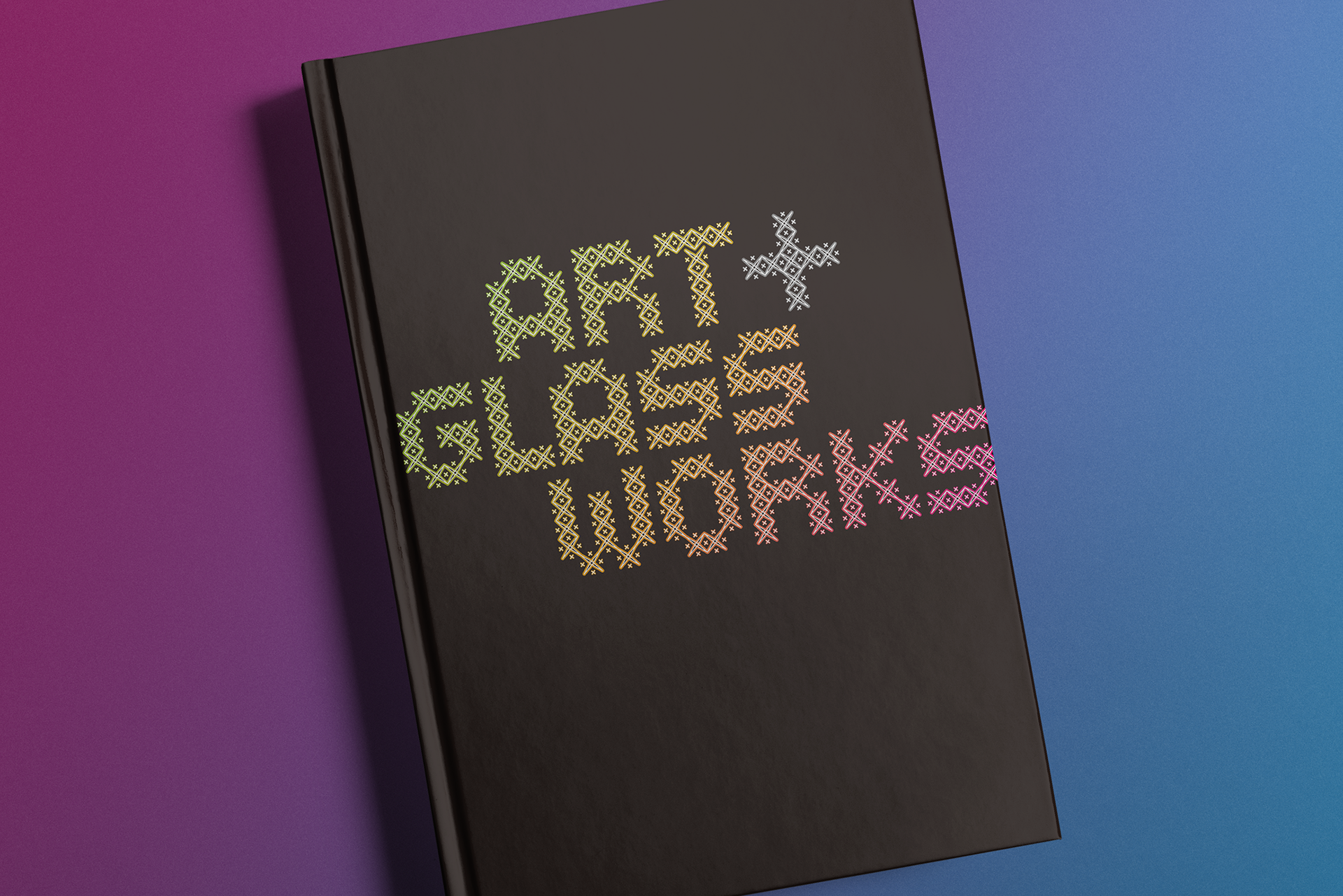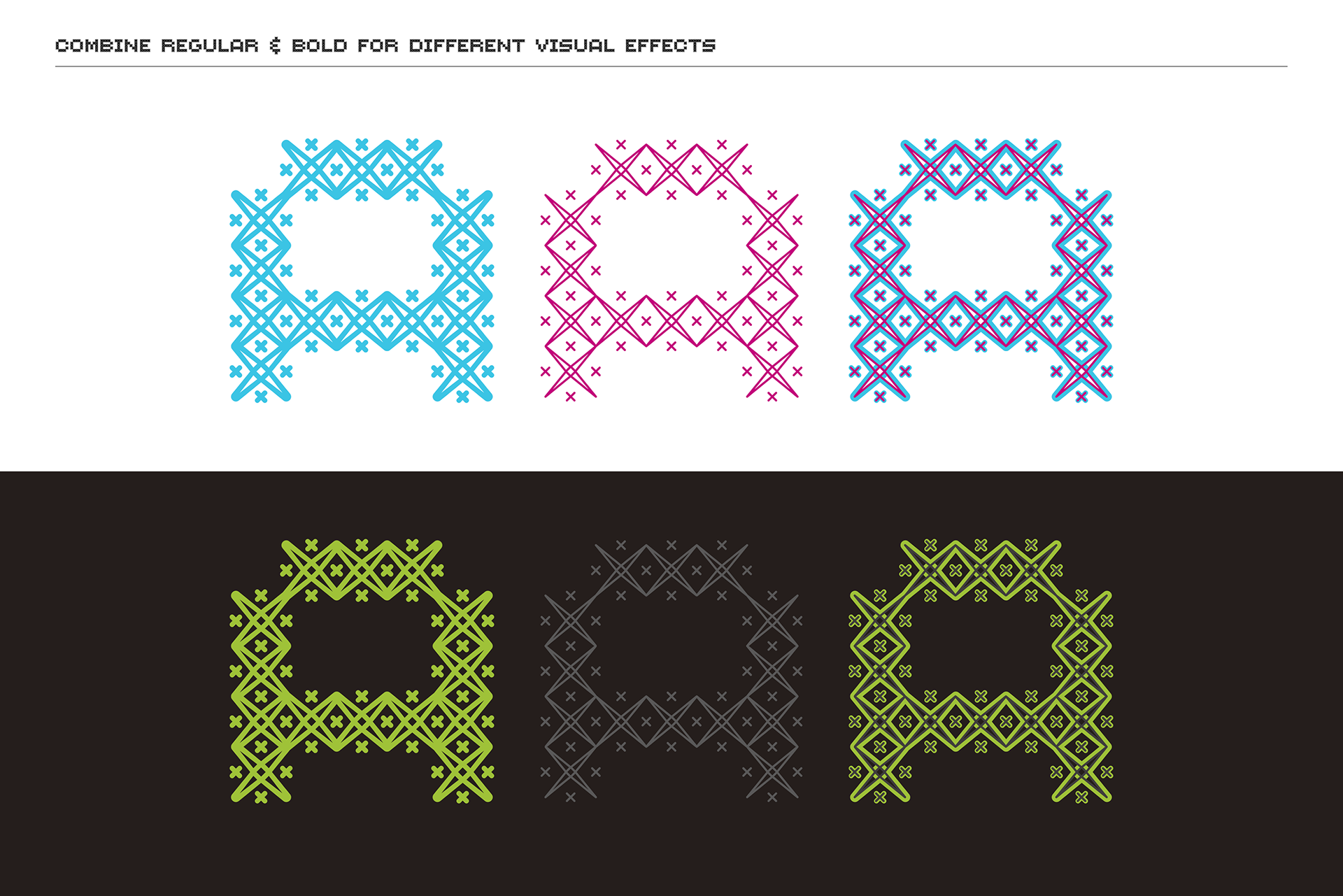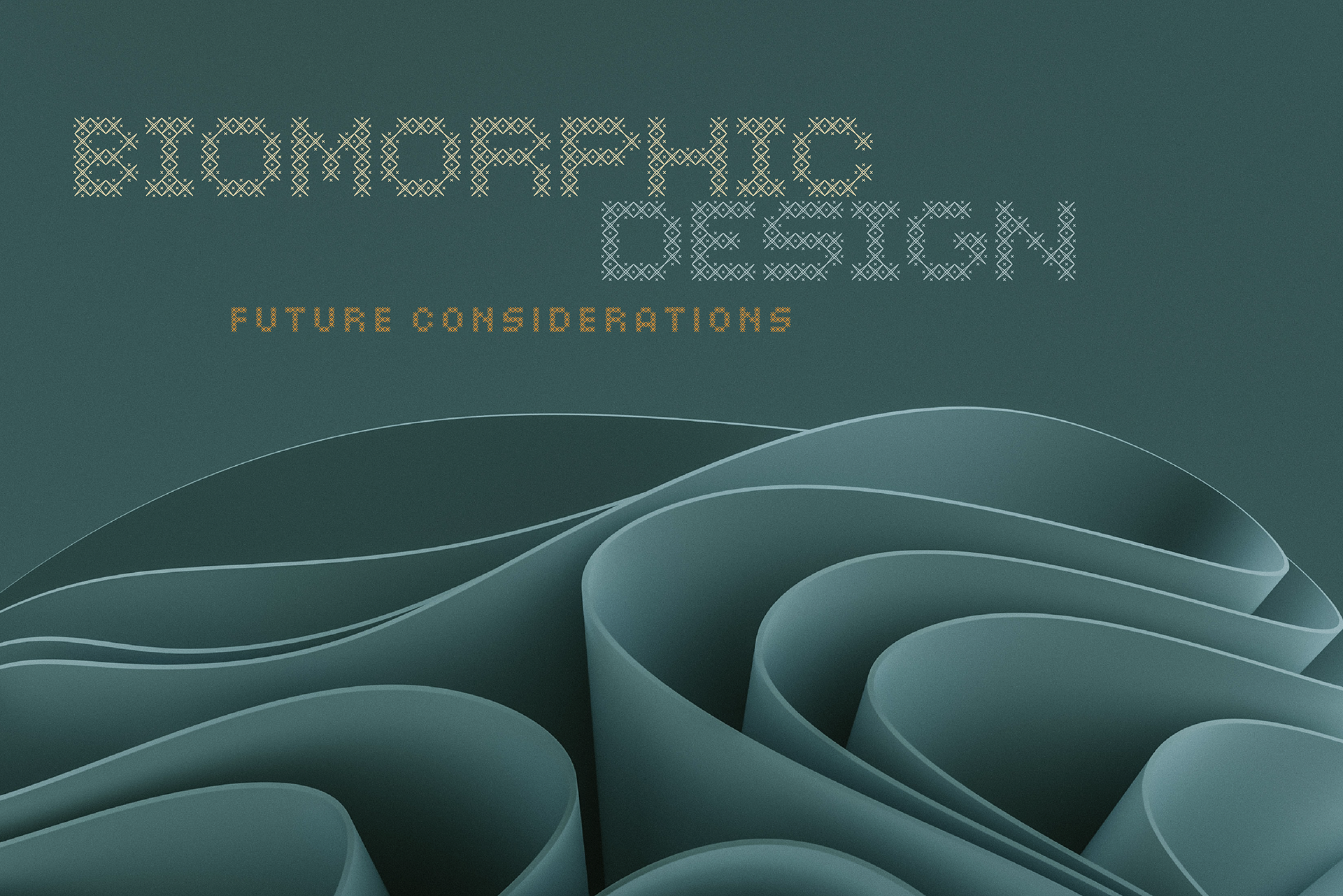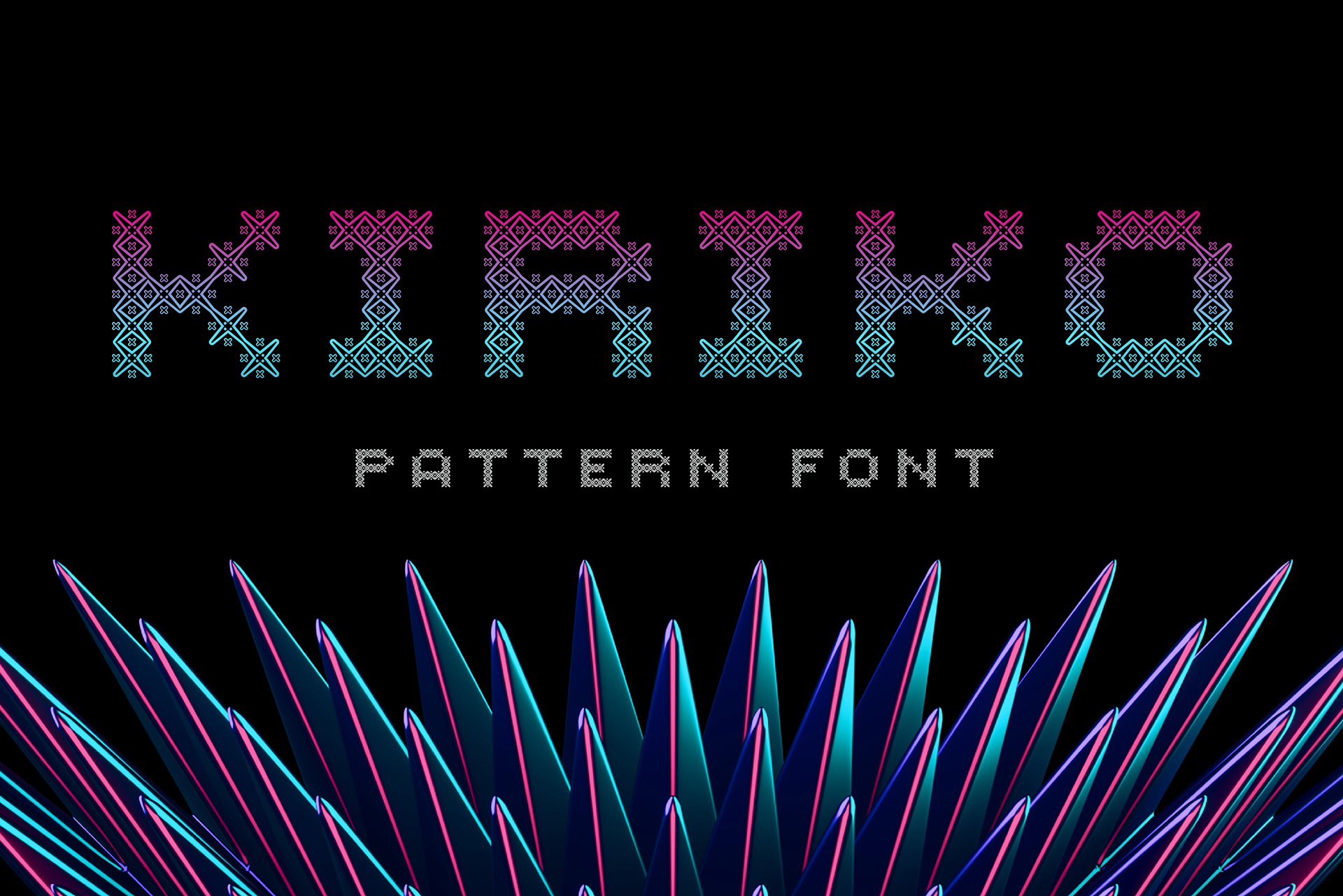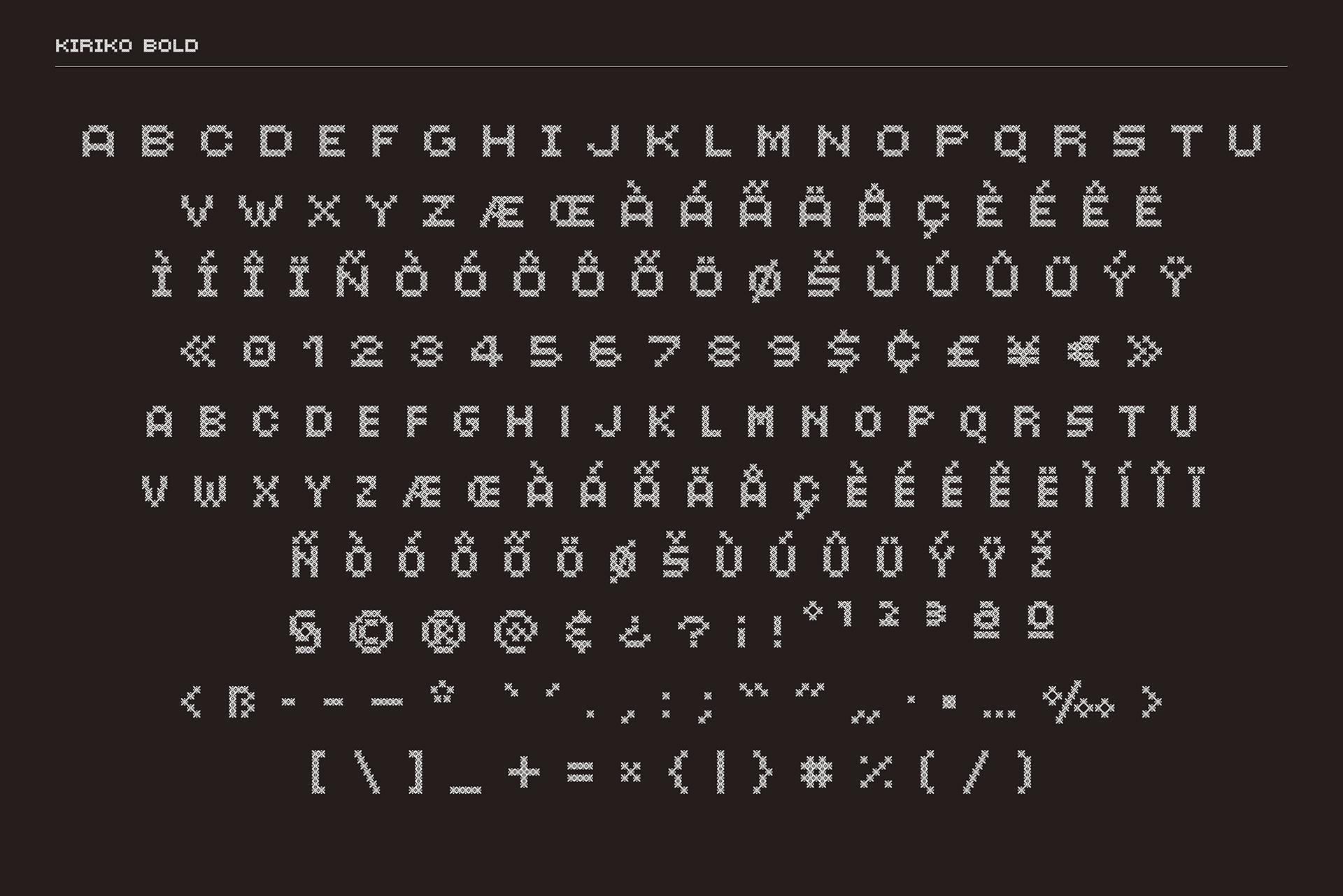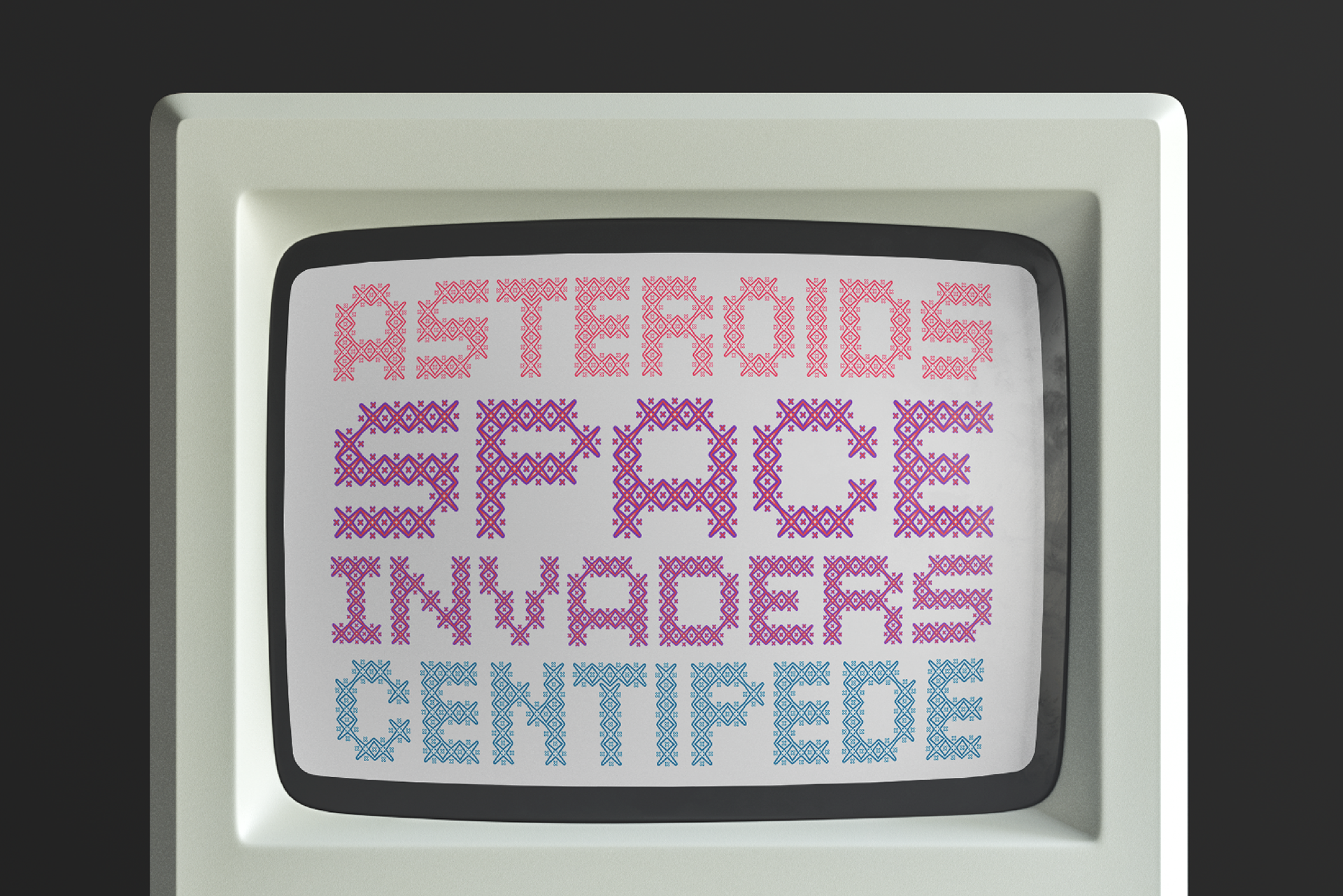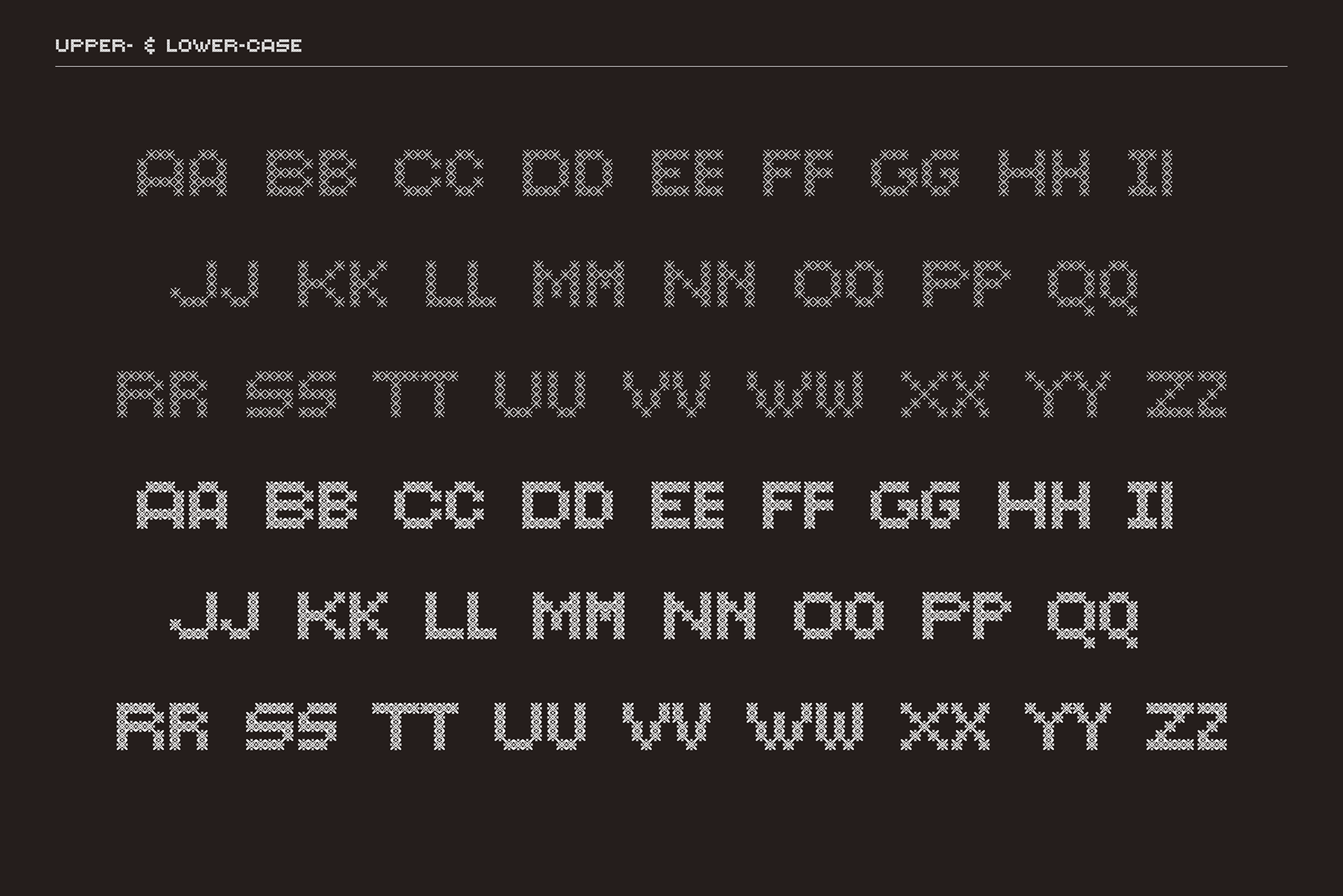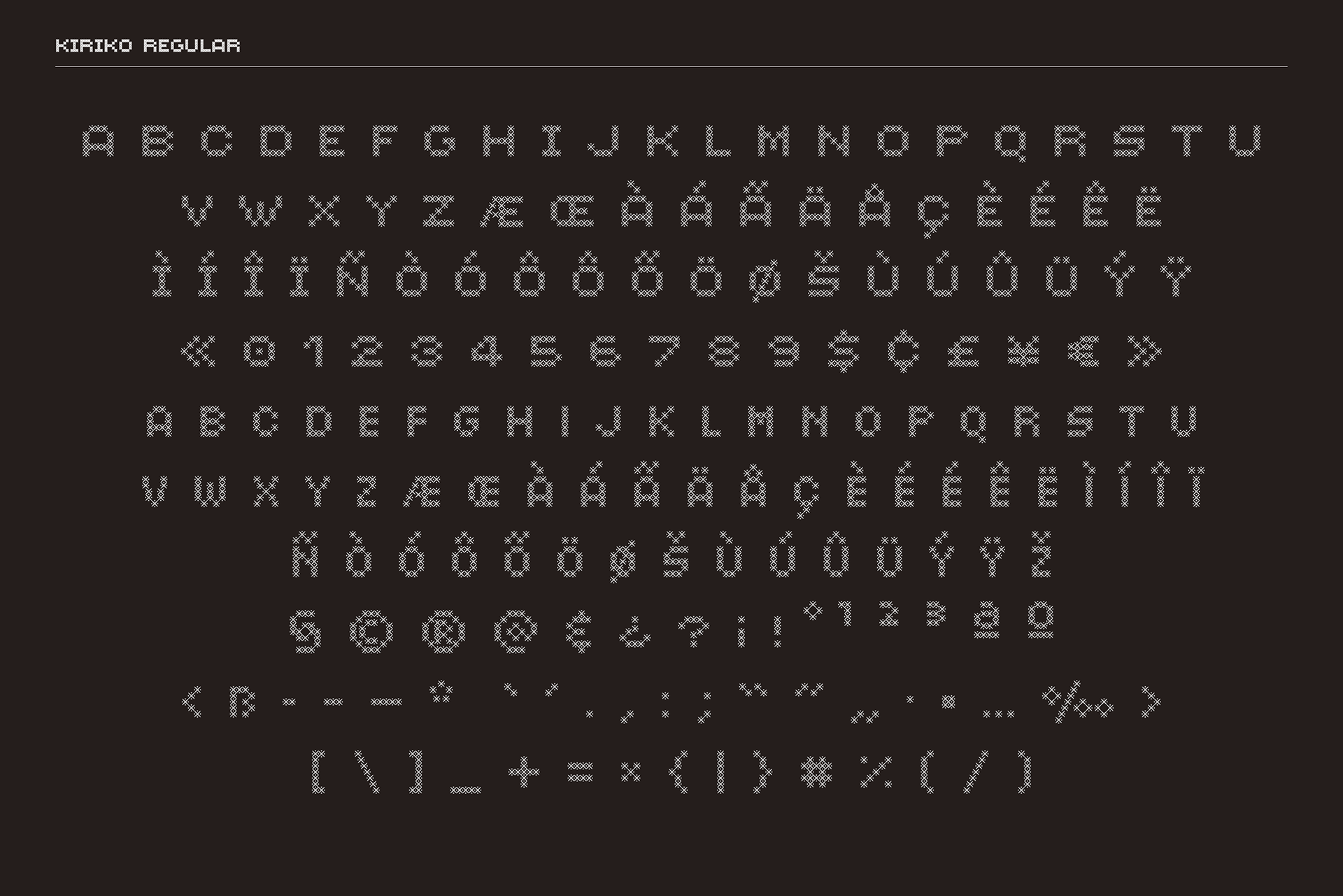
"Kiriko" is the traditional Japanese craft of decorative cut glass. I was inspired to create a pattern font reminiscent of kiriko designs for a magazine title design.